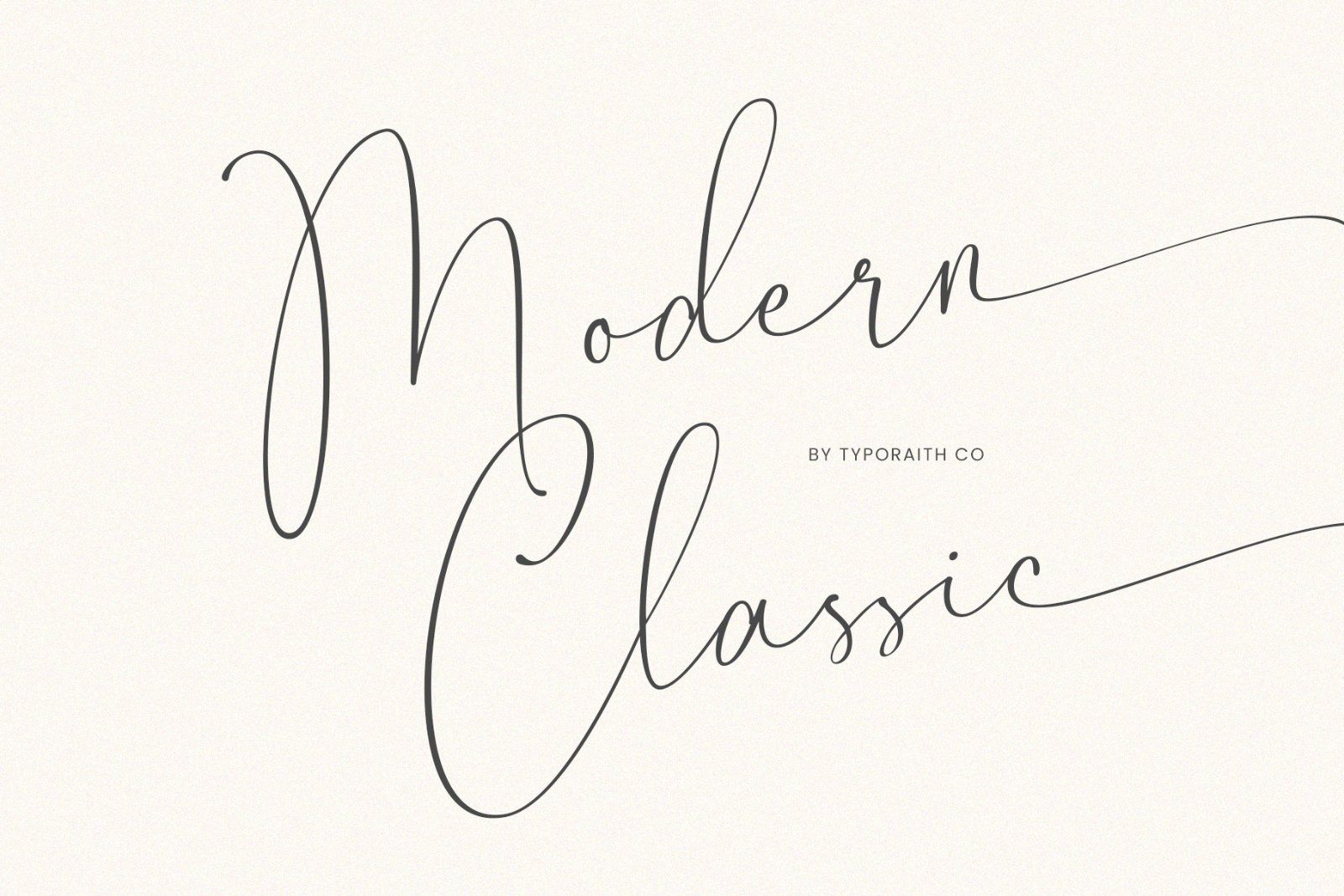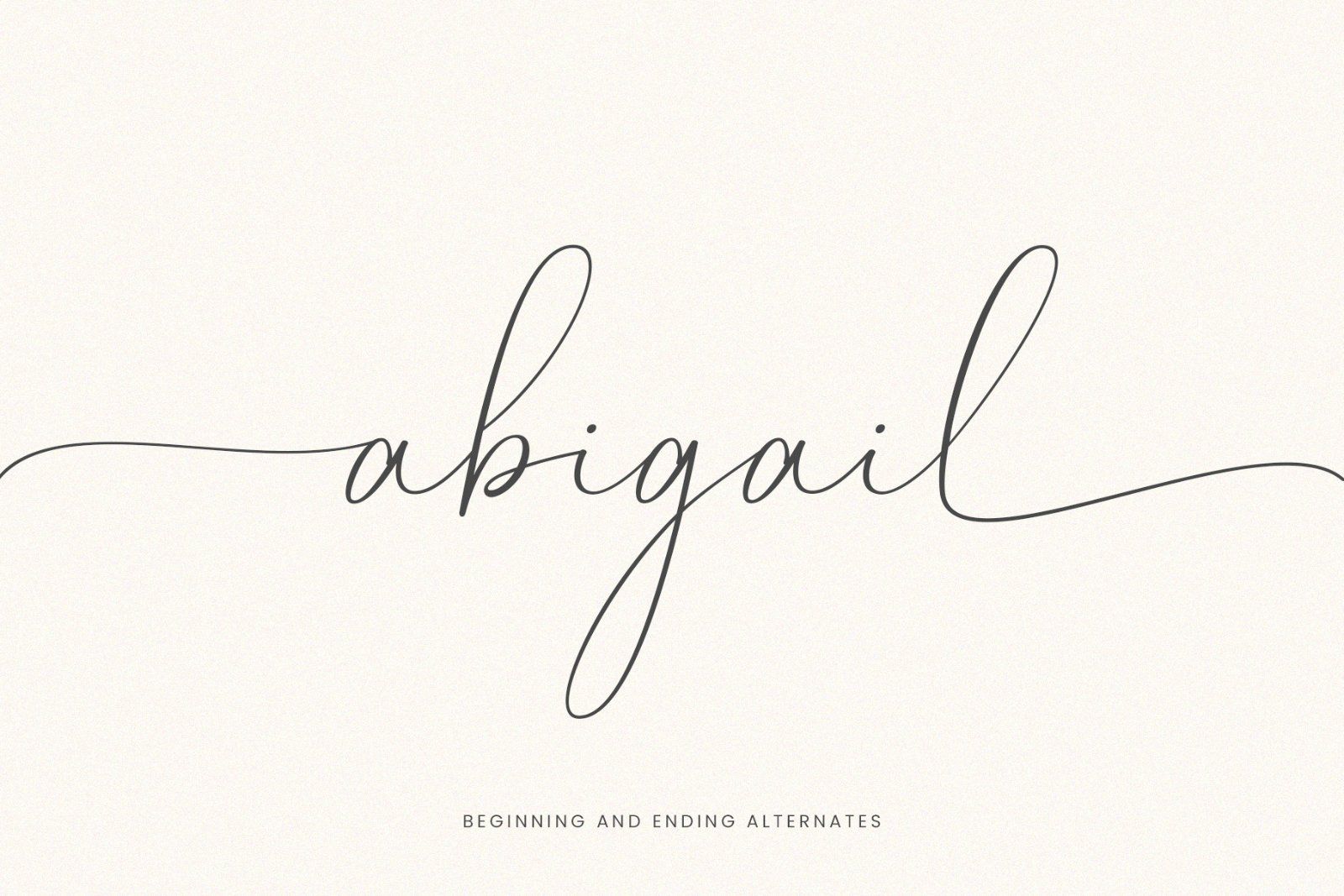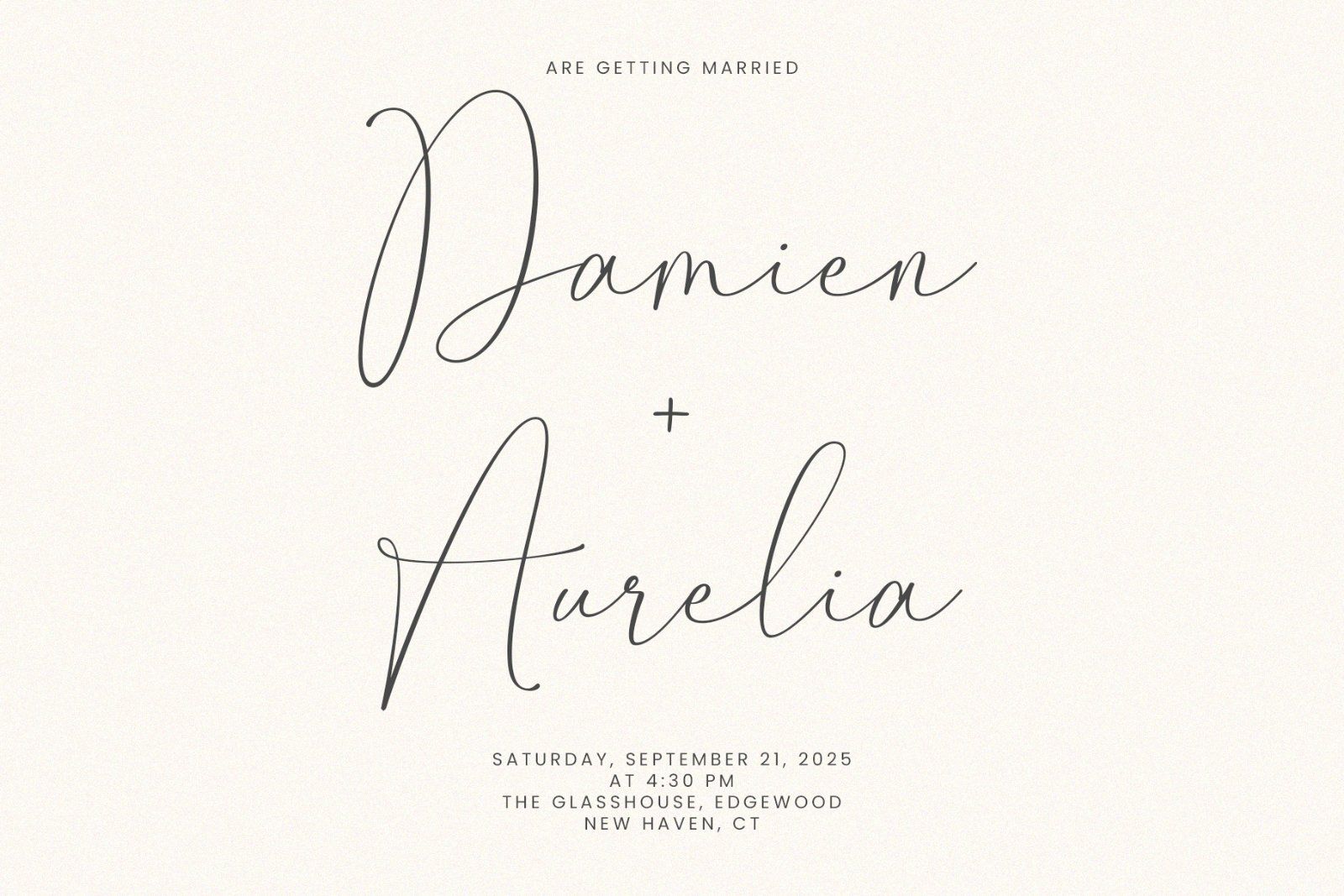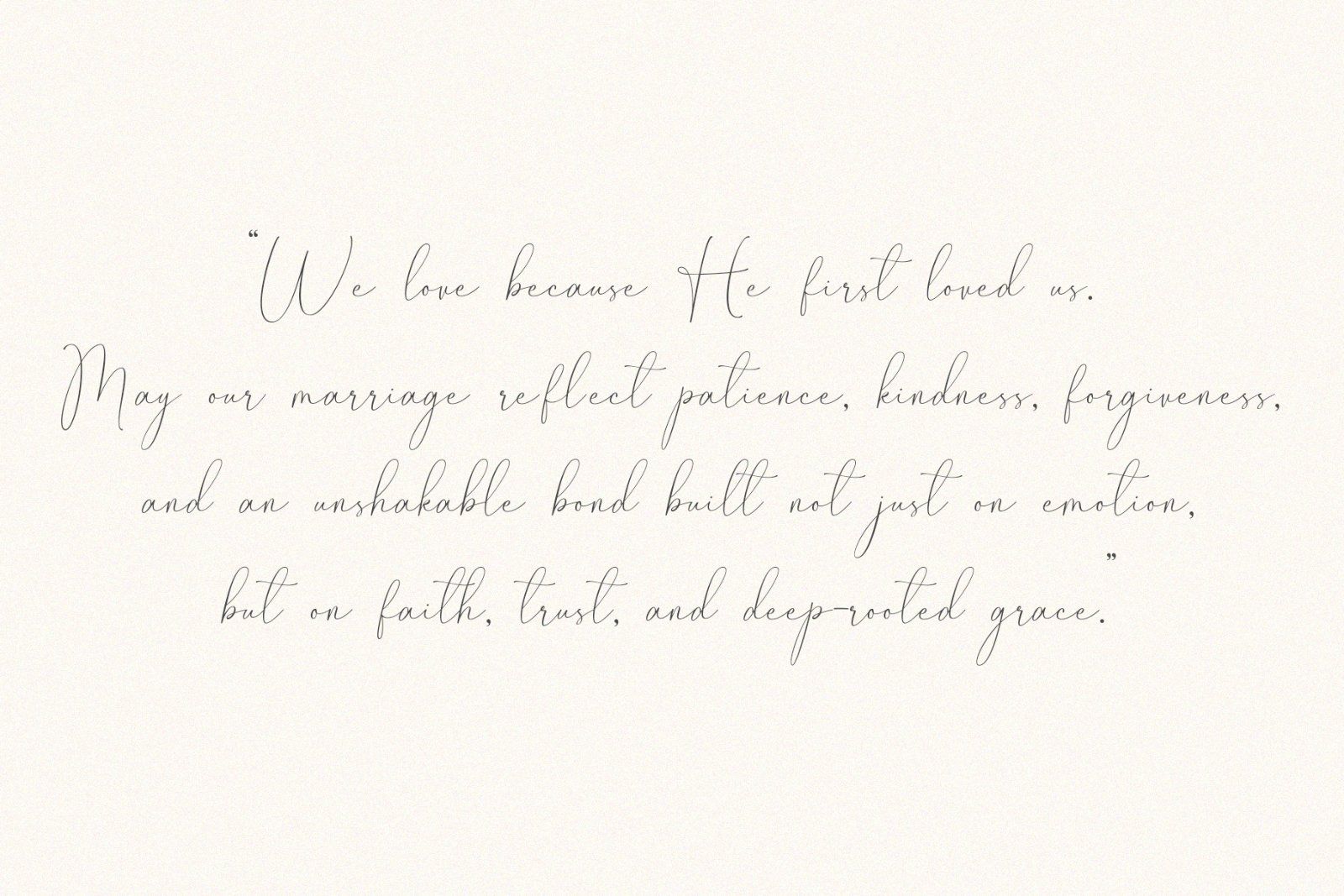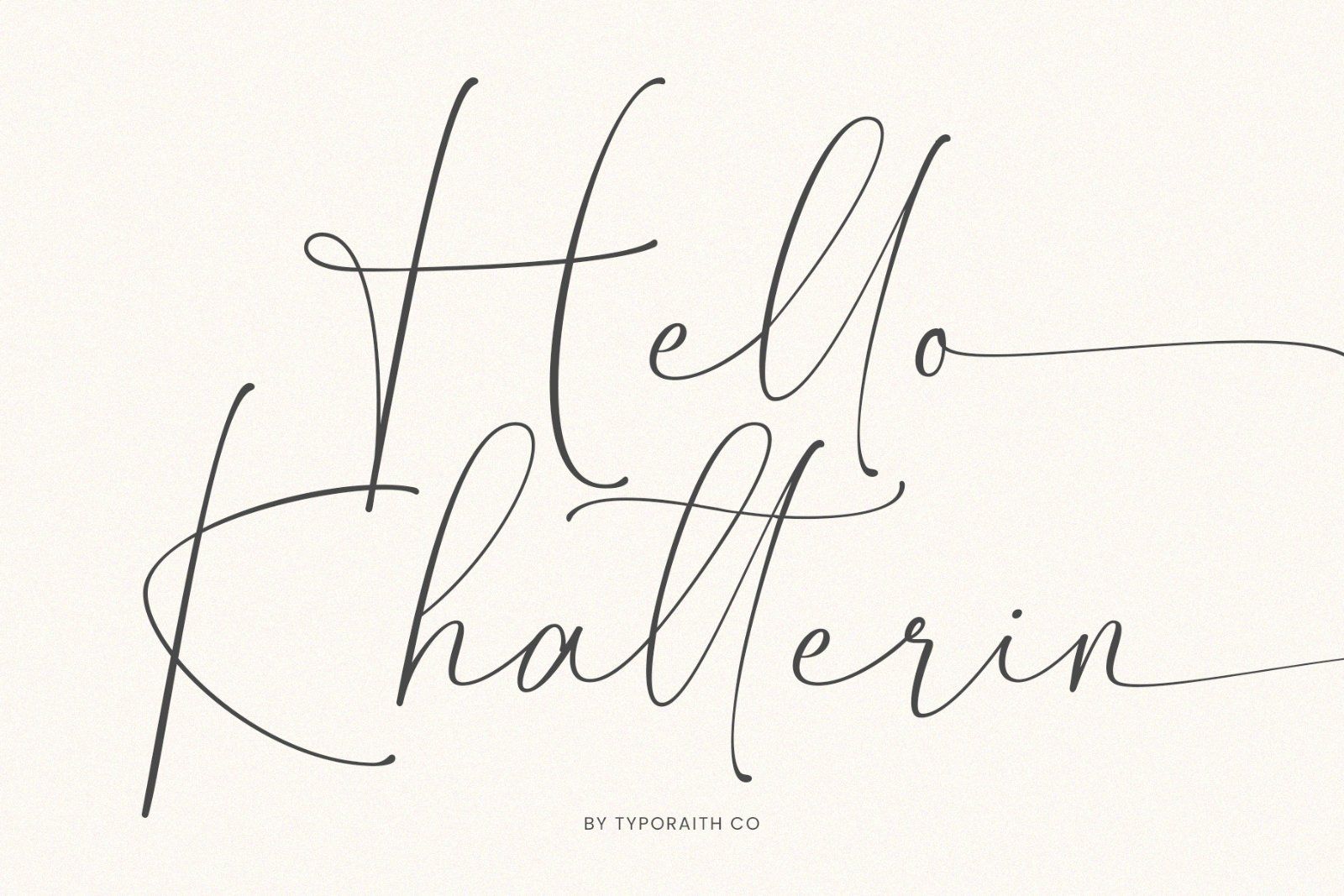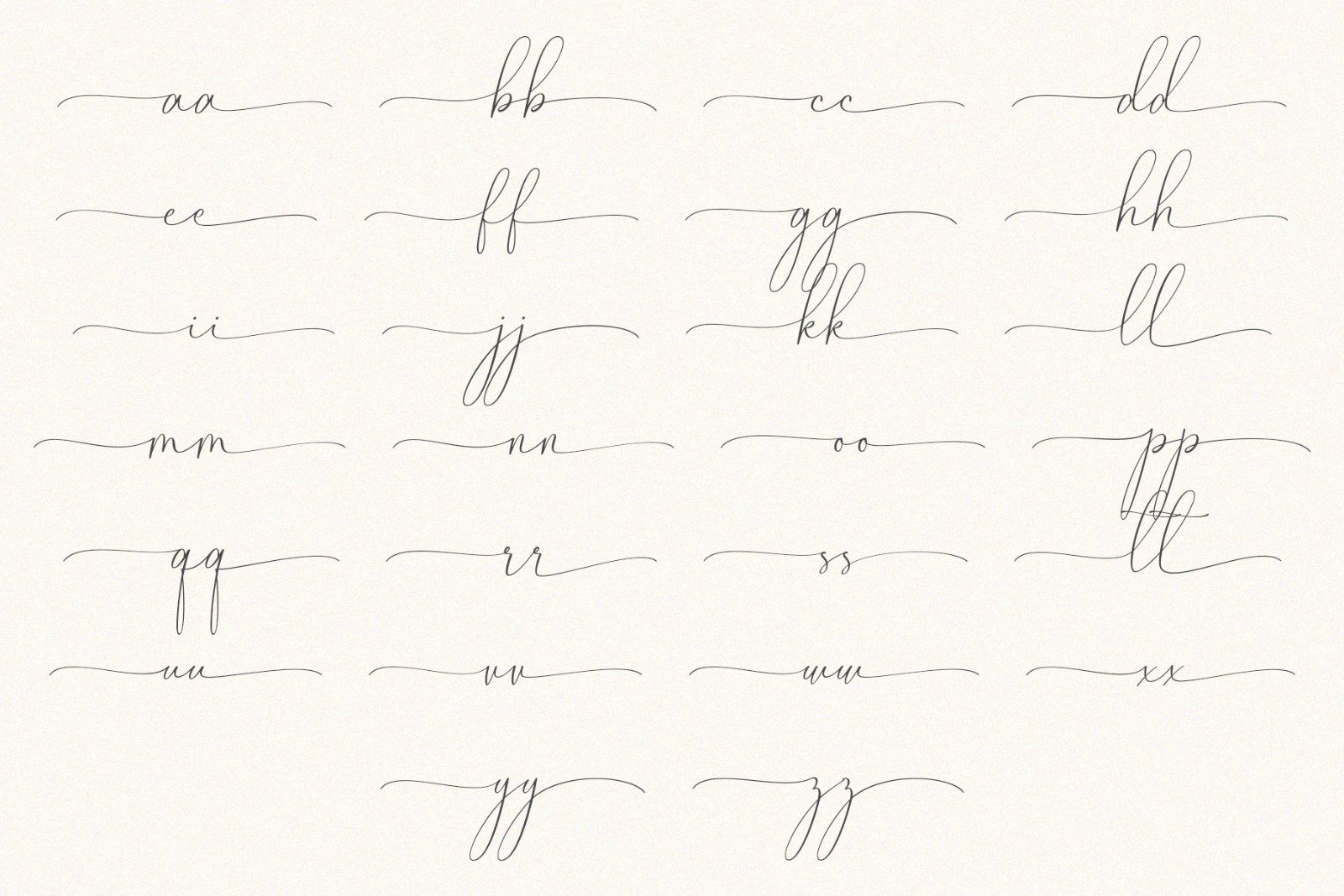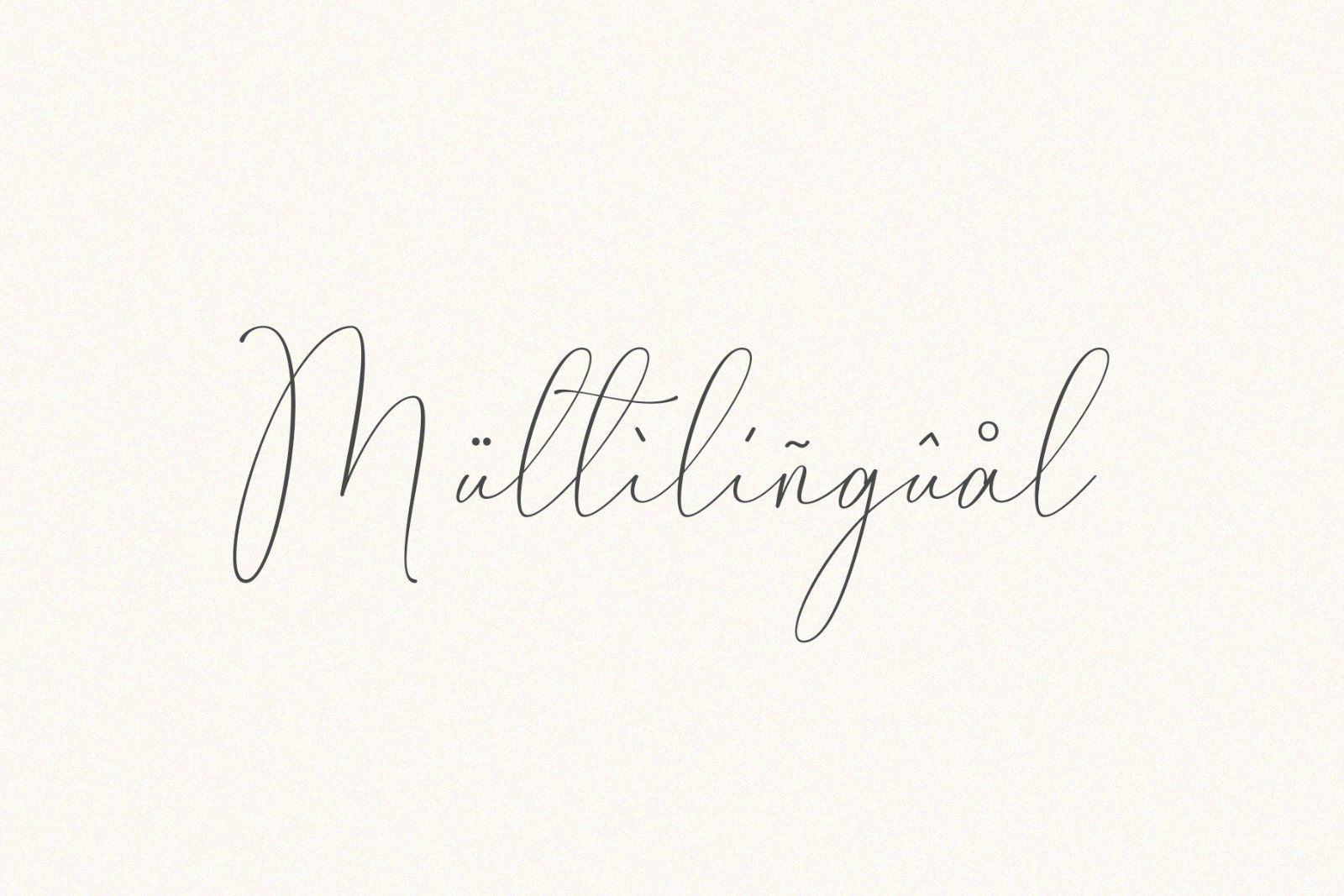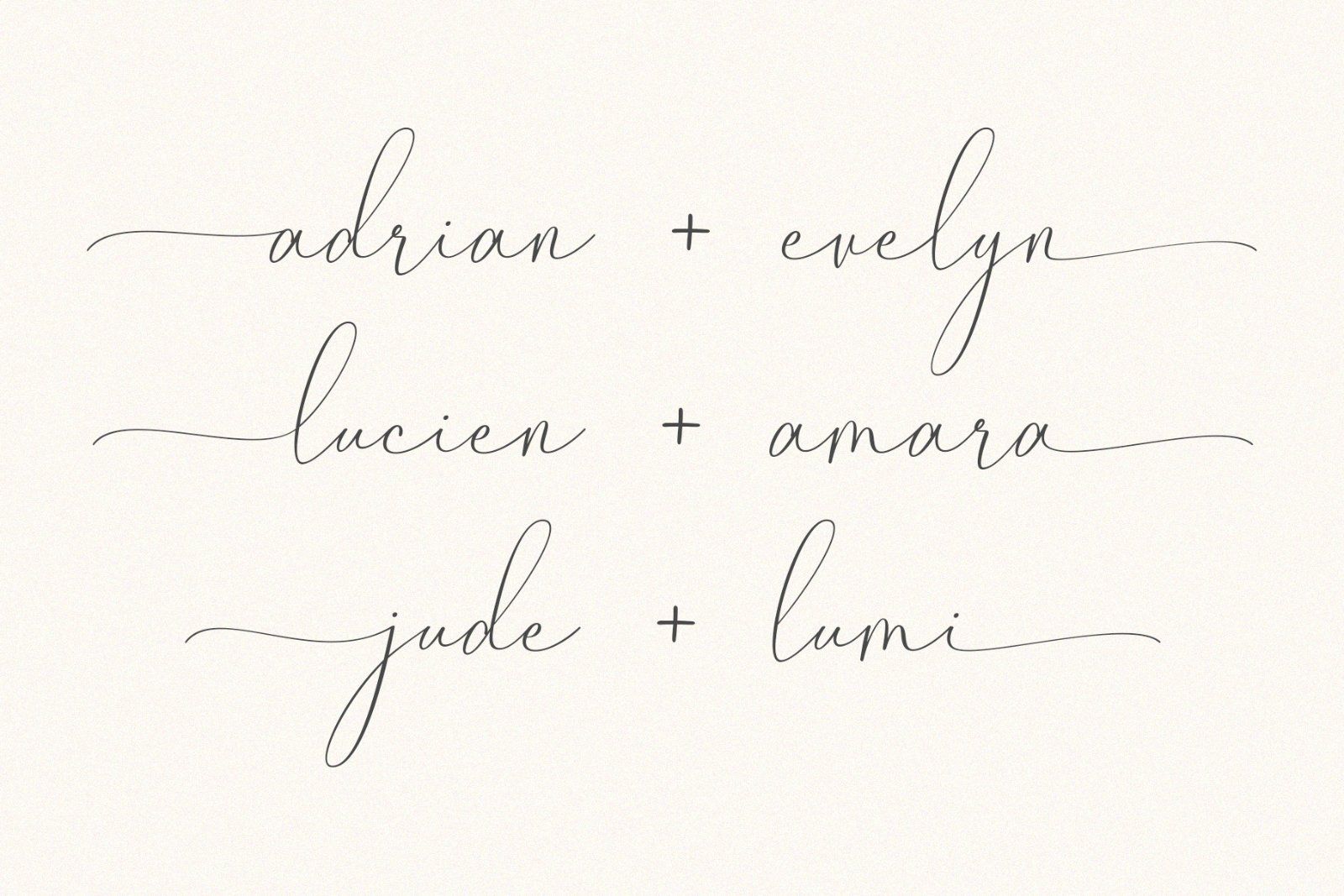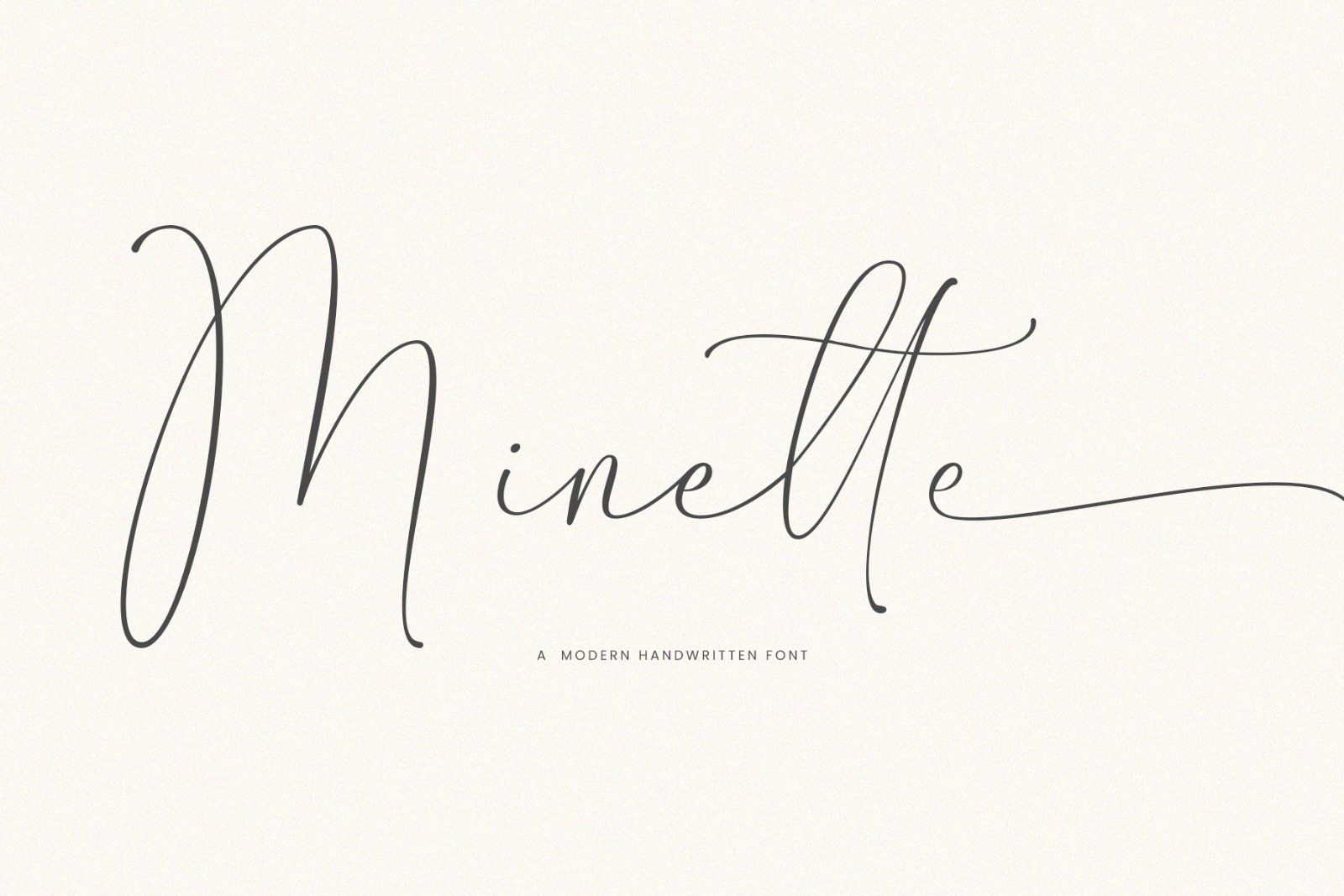
Minette is a delicate and modern handwritten font that blends subtle charm with clean minimalism. Crafted with care and attention to detail, each letter is designed to look effortlessly elegant as if written by hand with a smooth ink pen on fine stationery.
This font is perfect for:
• Wedding invitations
• Branding & logo design
• Social media quotes
• Packaging
• Stationery and editorial layouts
Whether you're creating romantic wedding suites or refined brand identities, Minette adds a personal yet polished touch to your designs.
• Uppercase & lowercase characters
• Alternates & Ligature
Let Minette bring grace and simplicity to your creative work where every word feels handwritten with heart.